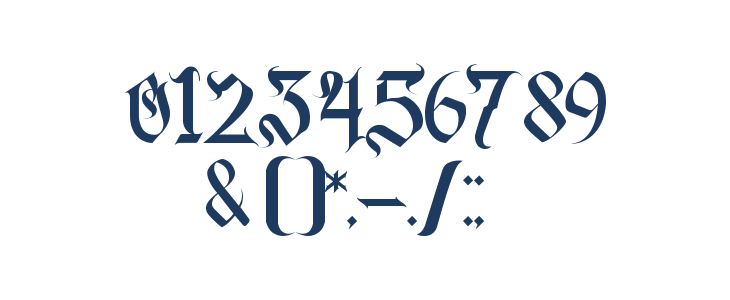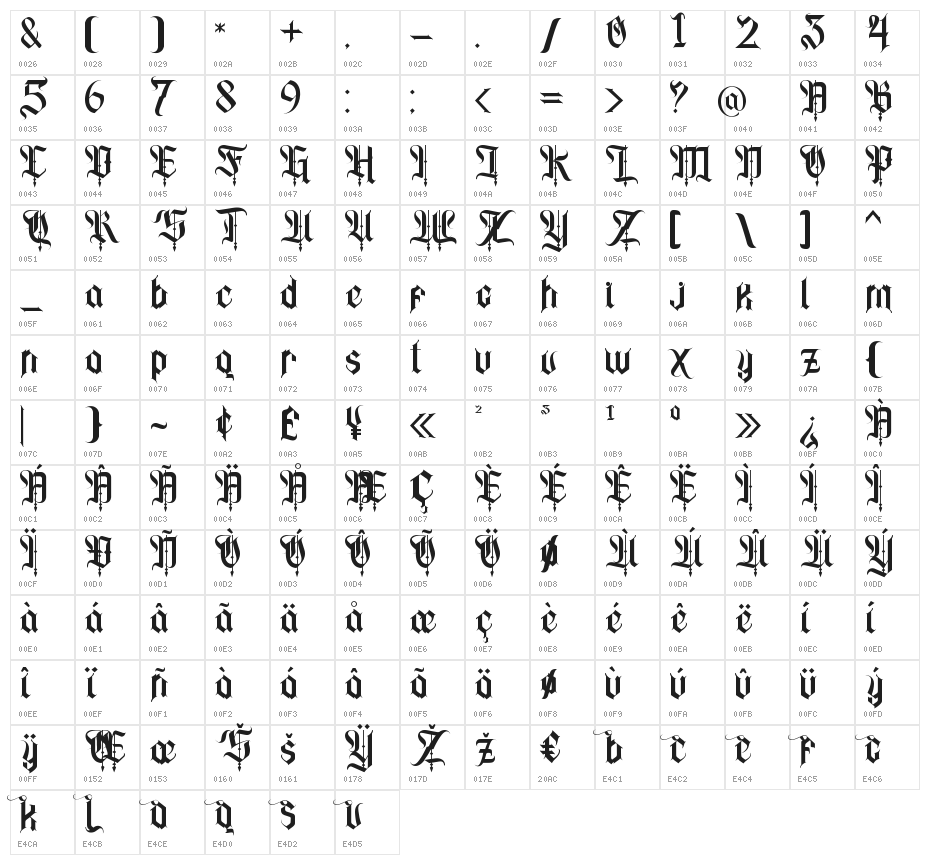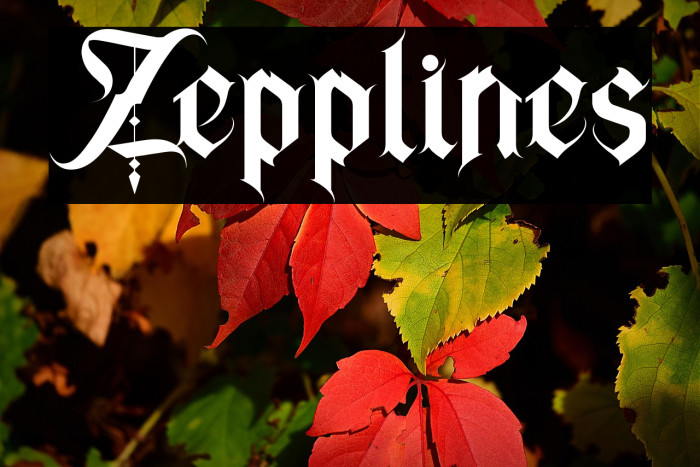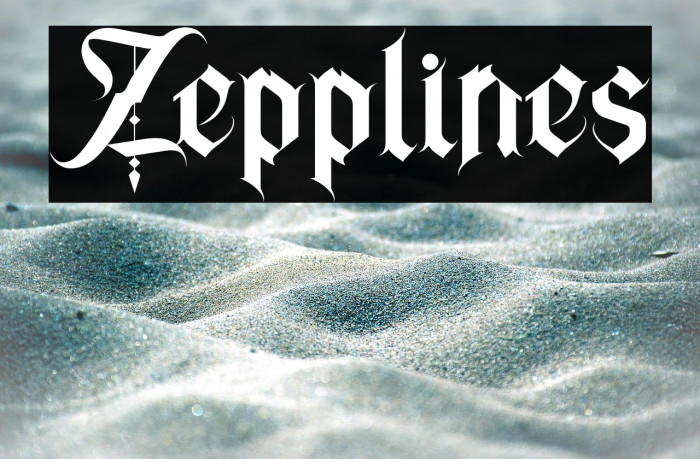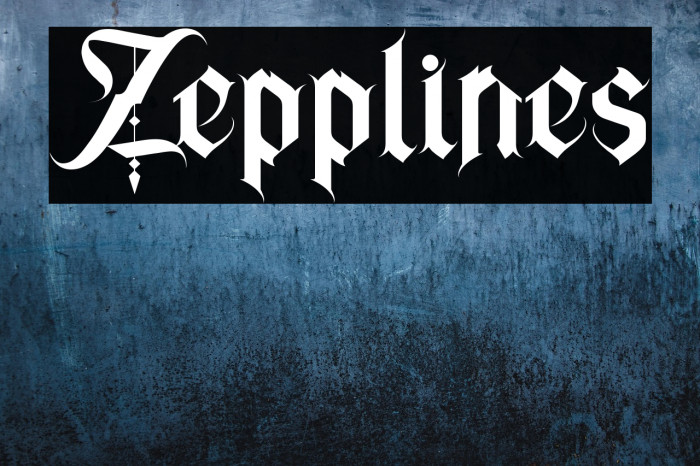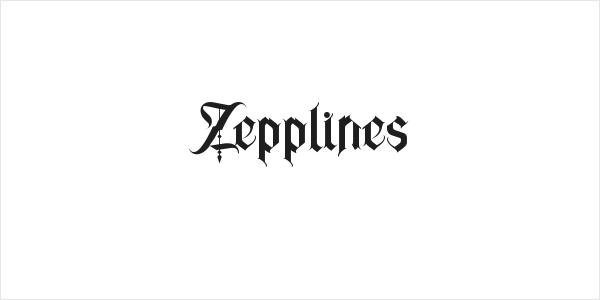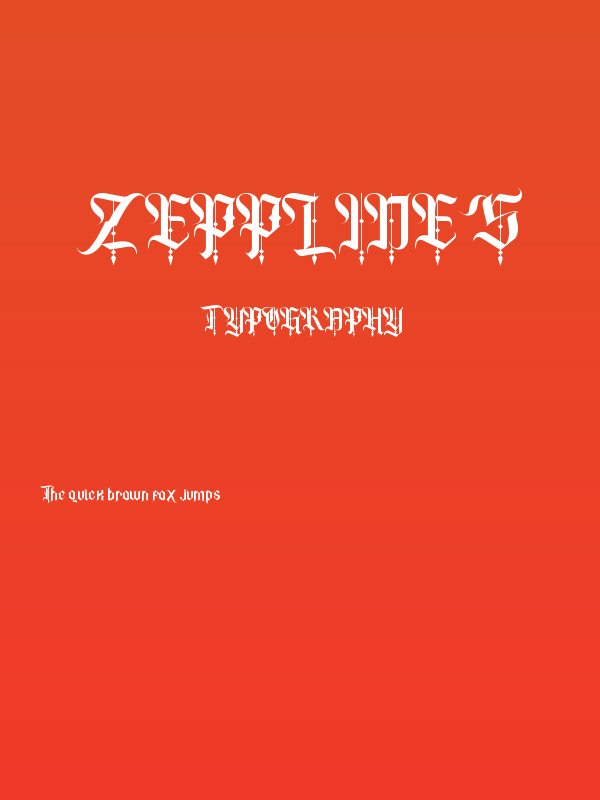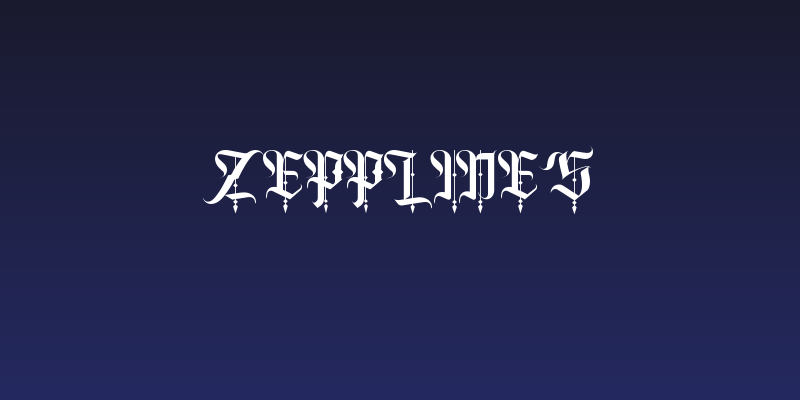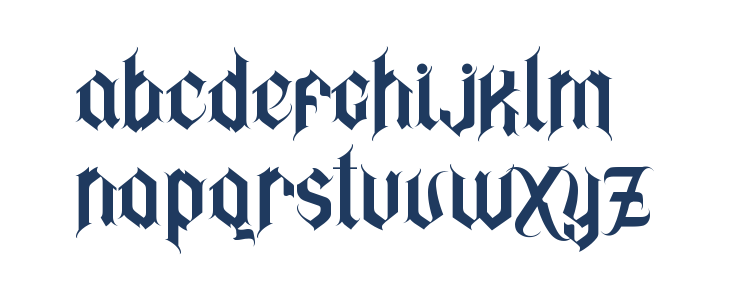
Zepplines Font
Zepplines Description
This font is a striking example of Blackletter style, characterized by its intricate and ornate design. The letters feature sharp, angular lines with dramatic flourishes and pointed serifs, reminiscent of medieval script. The uppercase letters are especially elaborate, with decorative elements that extend beyond the baseline and cap height. The lowercase letters maintain the same gothic aesthetic, with a slightly more subdued flair. Numbers and special characters are equally stylized, ensuring a cohesive look across all glyphs. The font's bold and authoritative presence makes it ideal for projects that require a historical or traditional touch.
| Categories | Gothic |
| Overall Style | Vintage |
| Use Case | Headlines, Logos, Decorative text |
| Proposed Projects | Ideal for historical documents, event posters, book covers, and branding that requires a traditional or gothic aesthetic. |